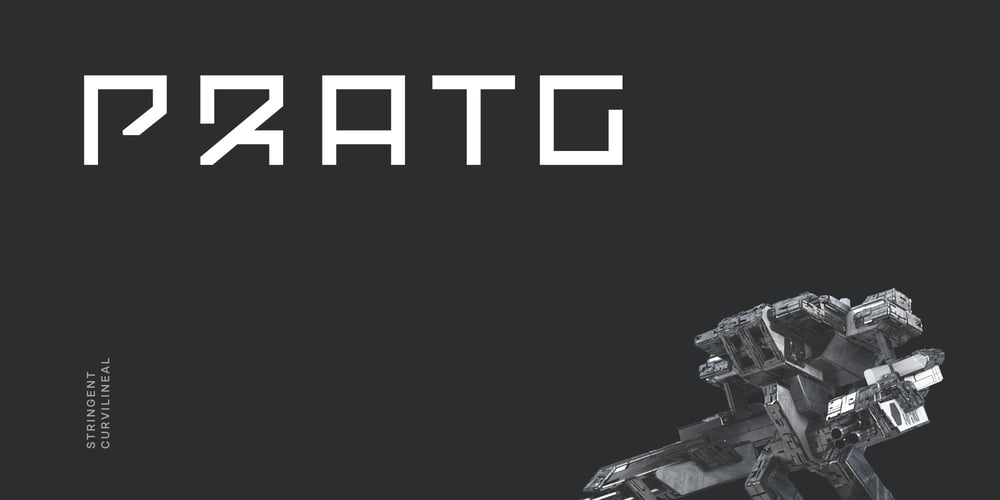
Pratg
Pratg font
Pratg Font Family was designed by Andrew Seah and published by Baqoos. Pratg contains 3 styles and family package options. Prattt is a stringent curvilineal tech sans apt for headline, editorial, branding, packaging, printed materials and typographic applications. 200+ glyphs with ligatures and fractions provided in opentype .otf and .woff format.